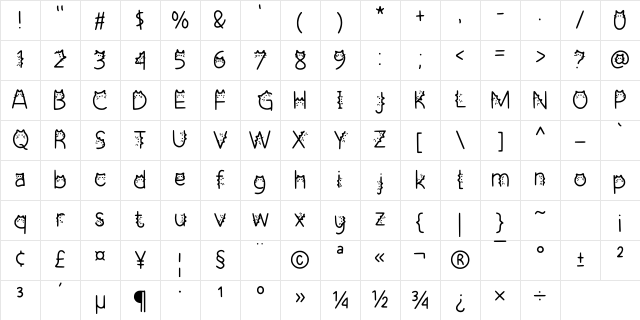
Cattie Regular
Foundry: Aisyah
Designer: Nur Aisyah Amalia
Design Context for Cattie
Cattie is a composed and adaptable typeface that performs quietly and consistently across a wide range of design contexts.